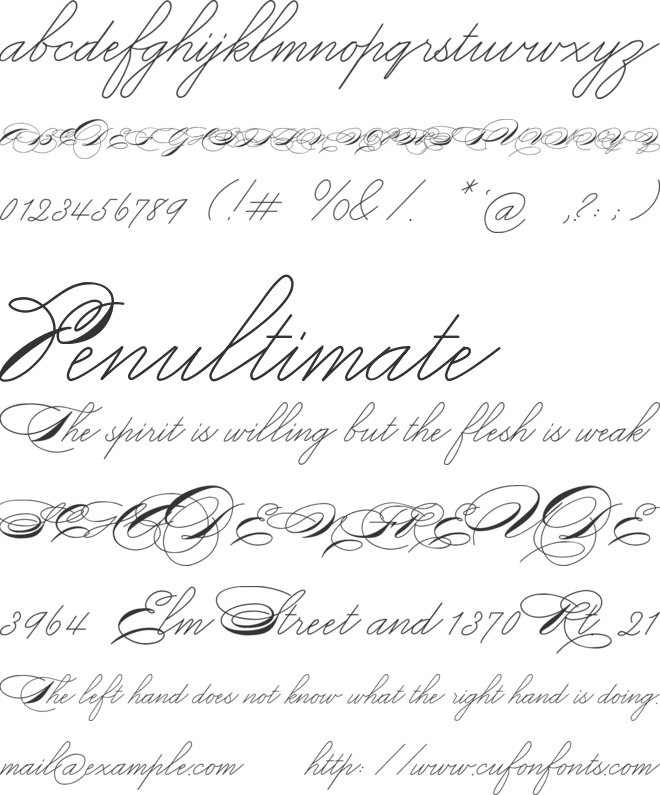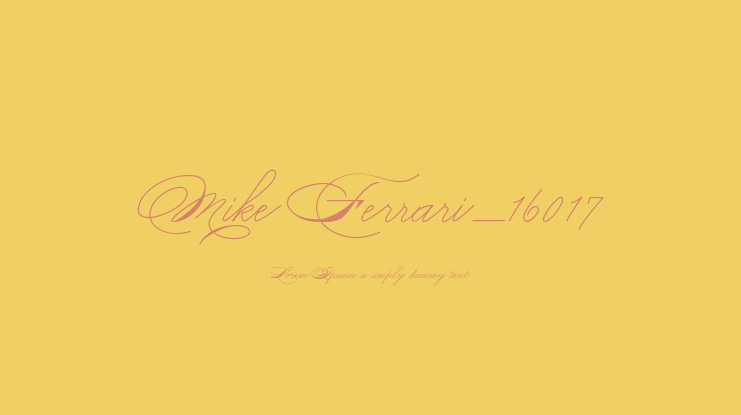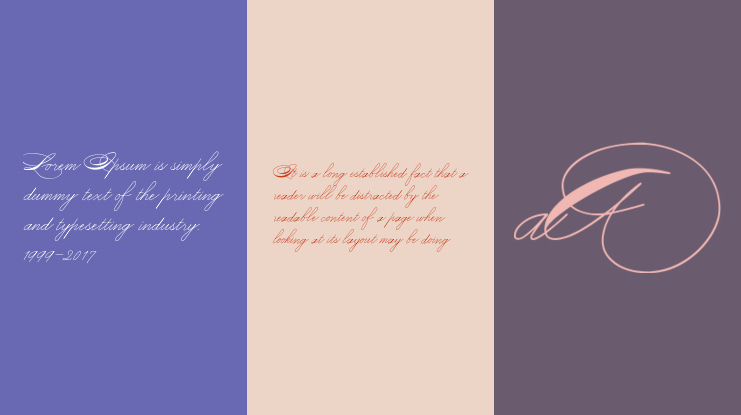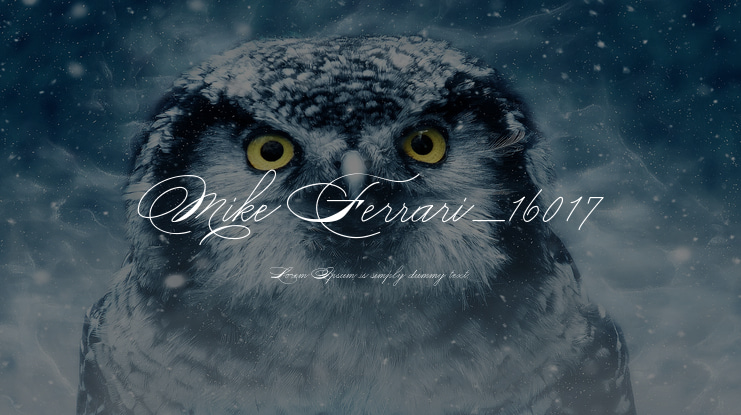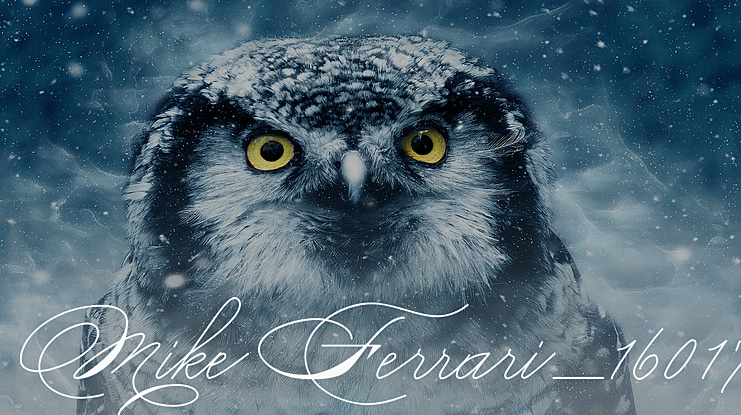
Mike Ferrari_16017 Font
Mike Ferrari_16017 is a typeface based on Spencerian script. Equipped with it's elegant and beautiful strokes. The perfect font to color up your project with human touch and elegancy. It was said that Spencerian script is based on the beauty of God which the founder of the script, Platt Roger Spencer, take the cues from nature which God instilled His beauty.